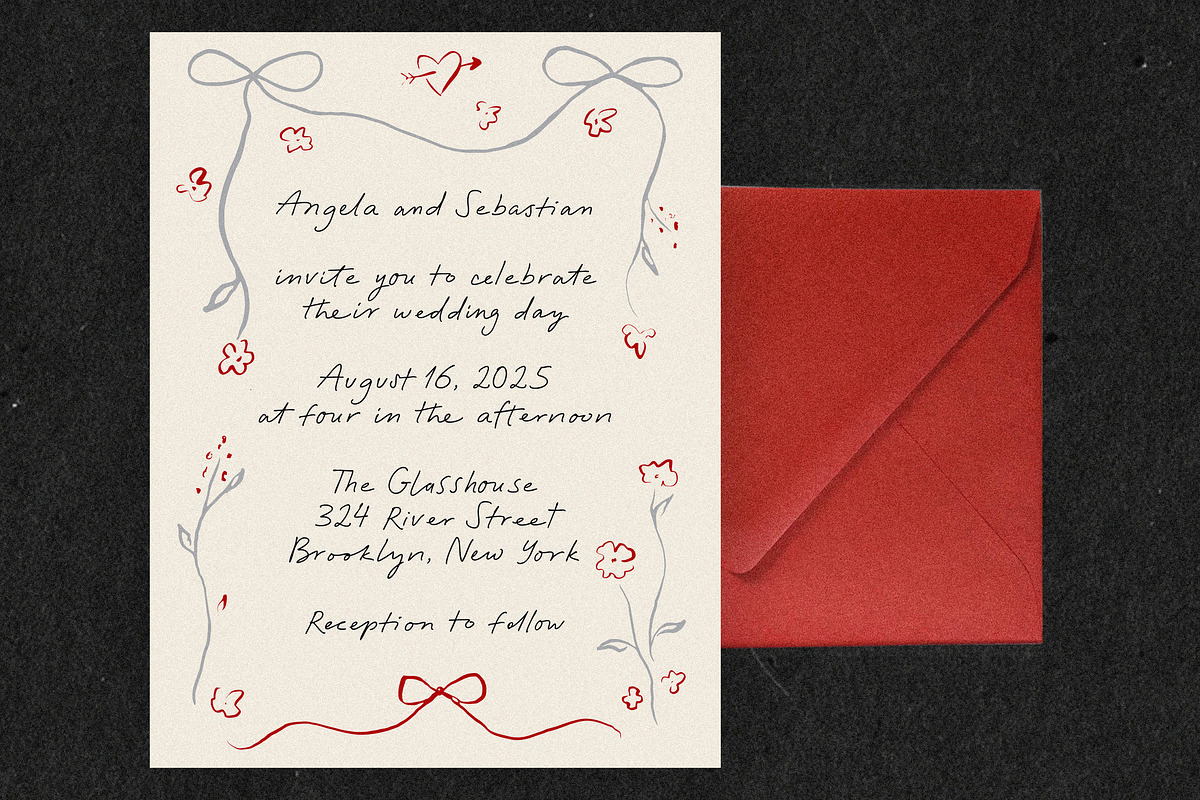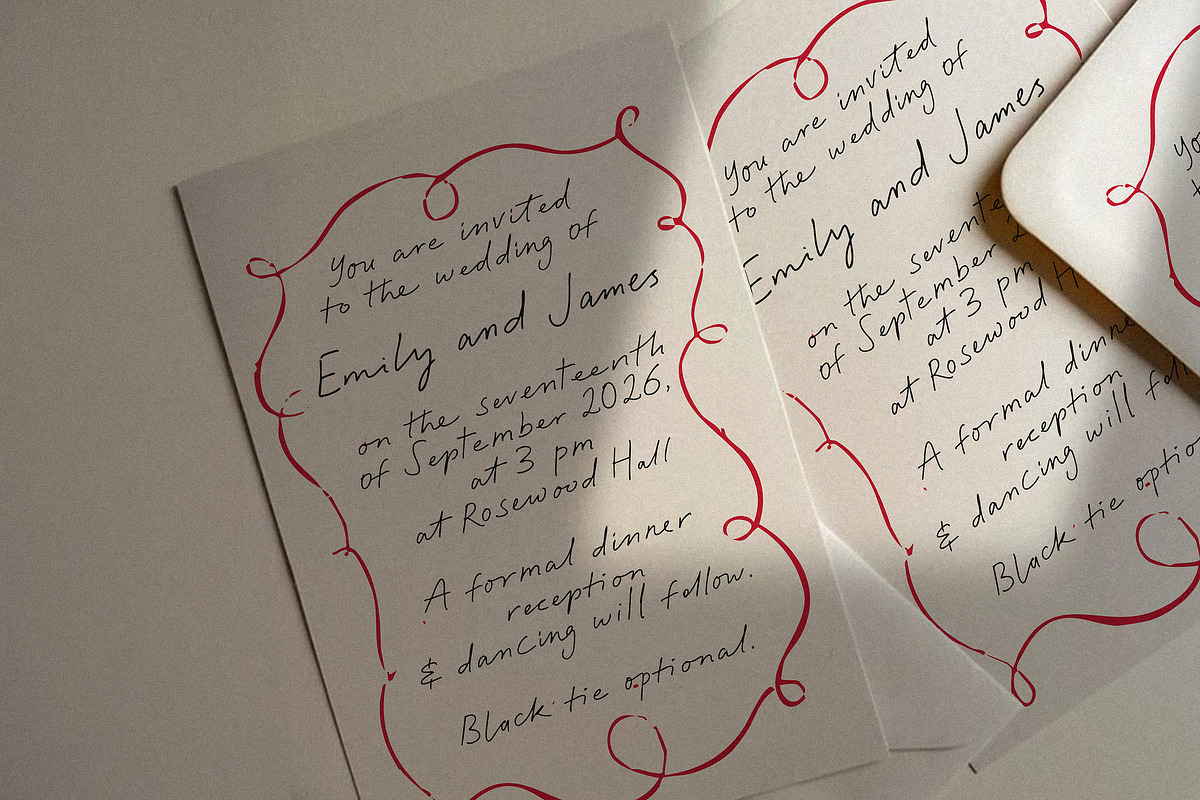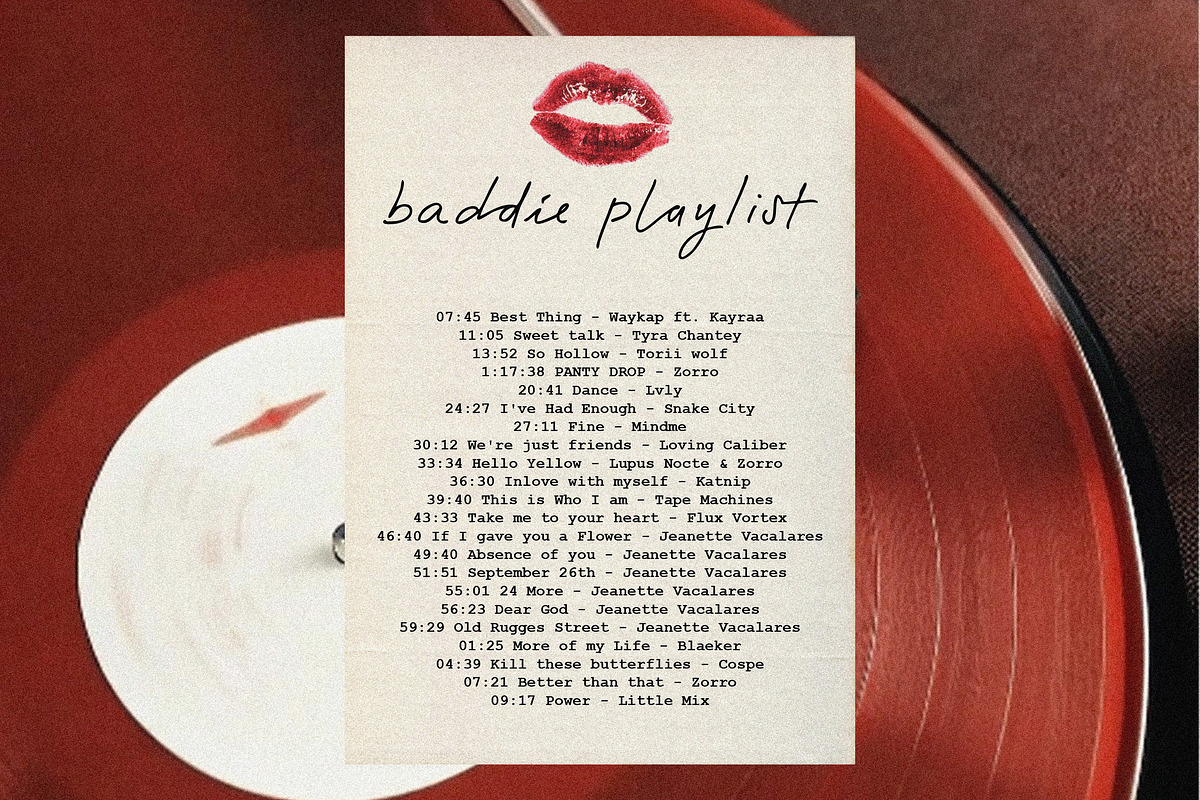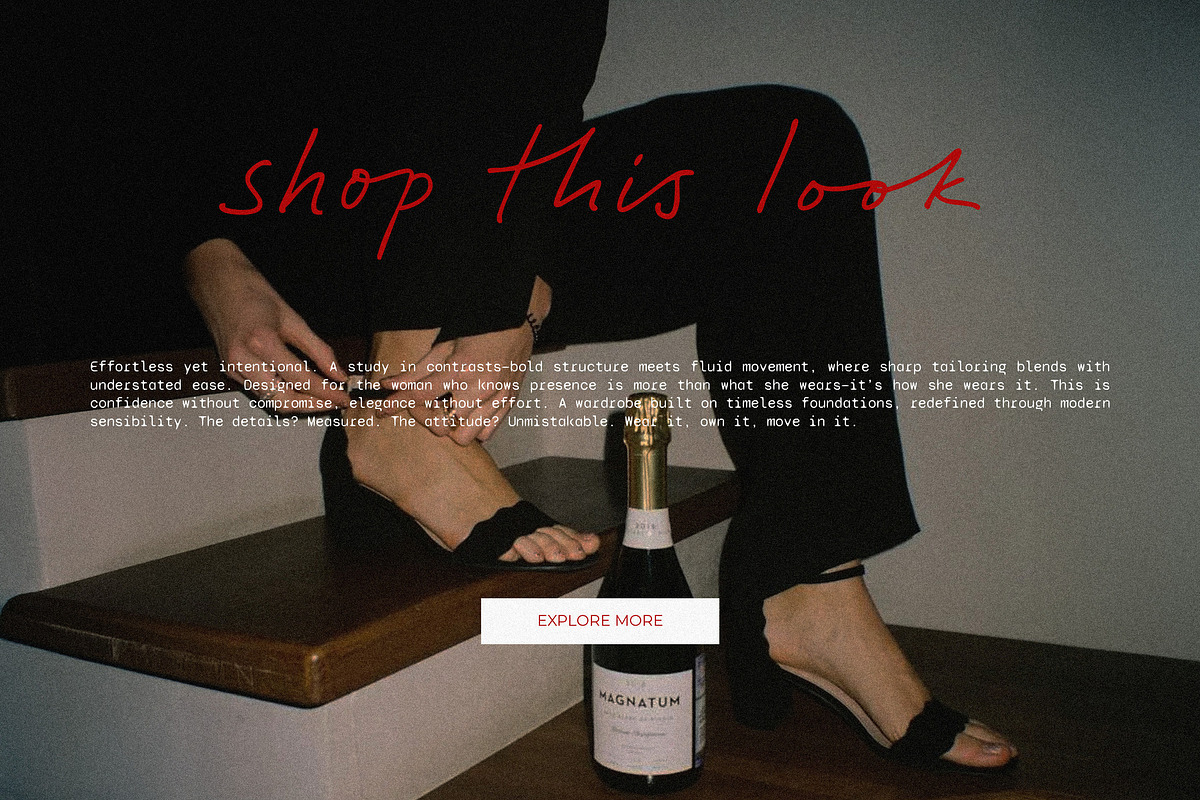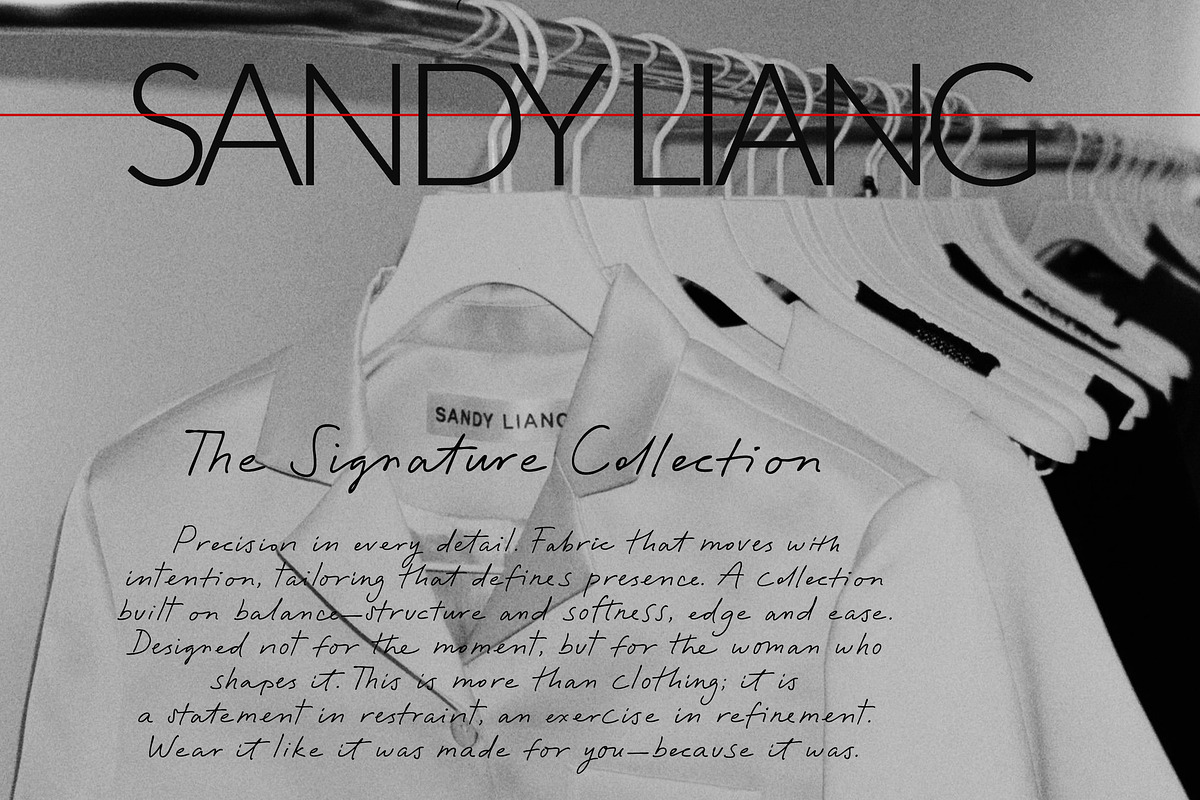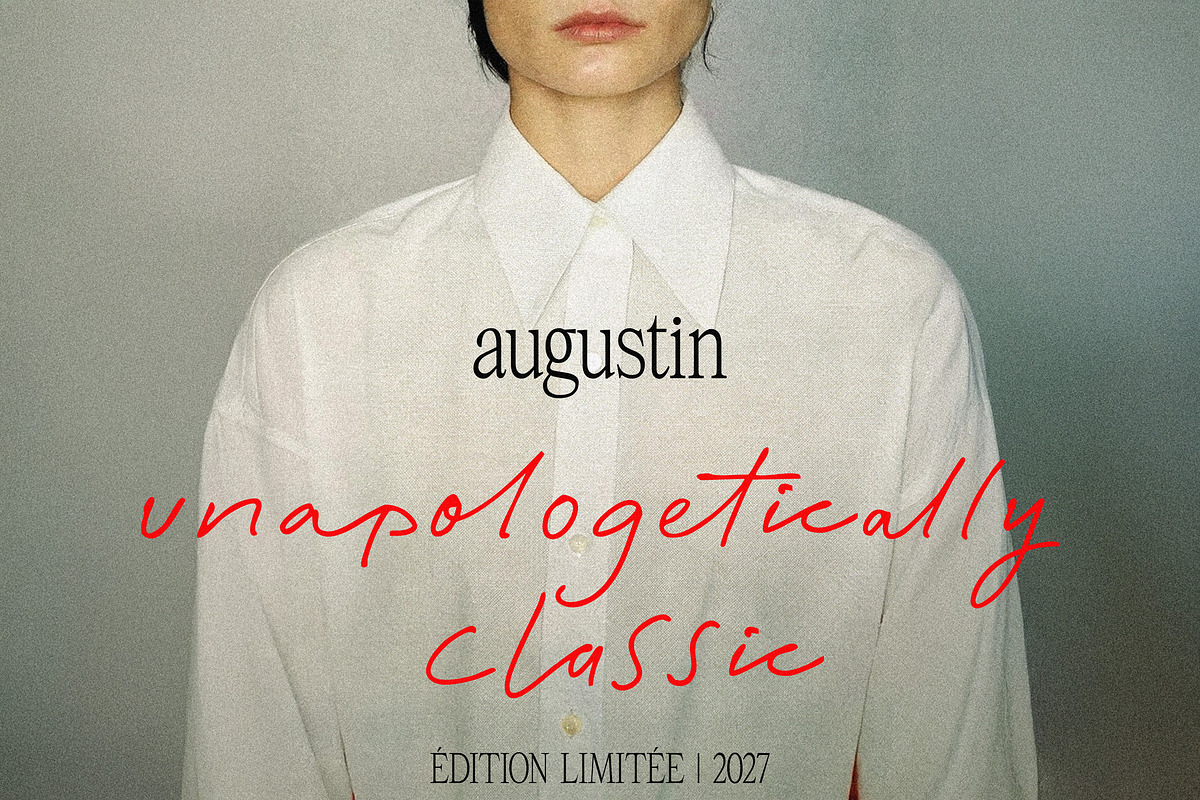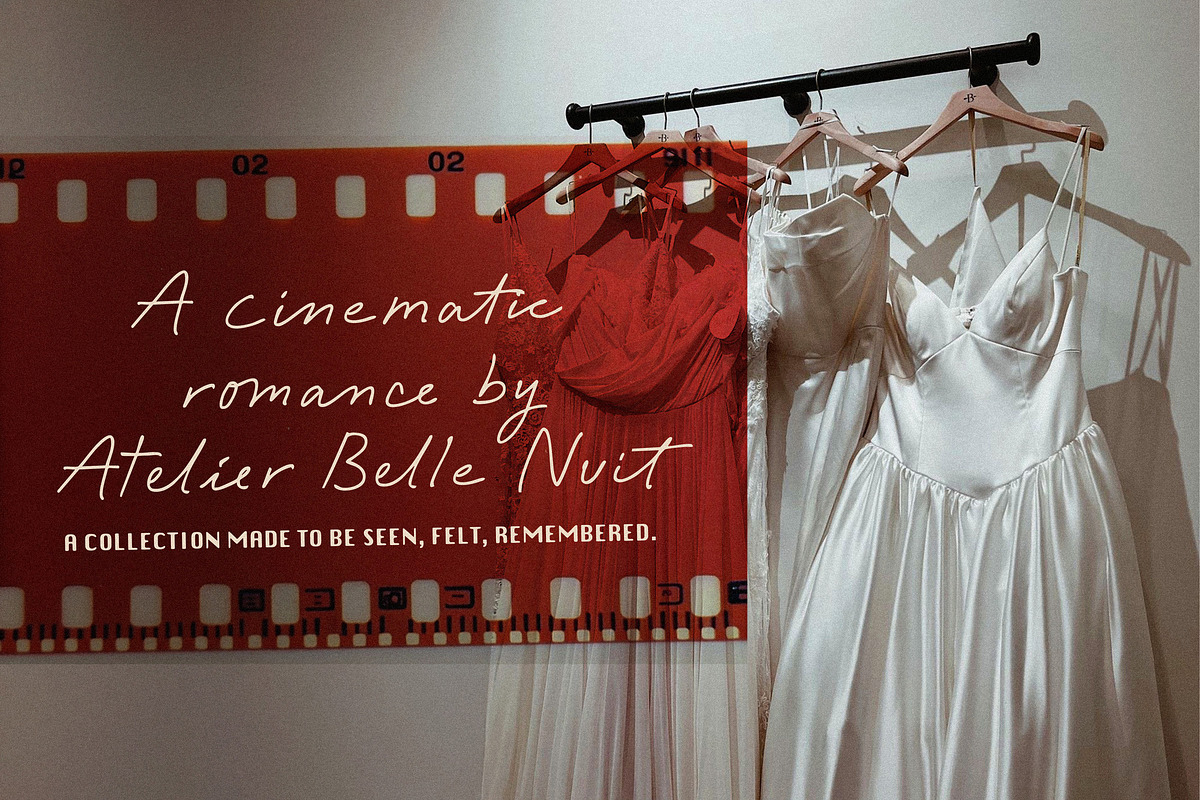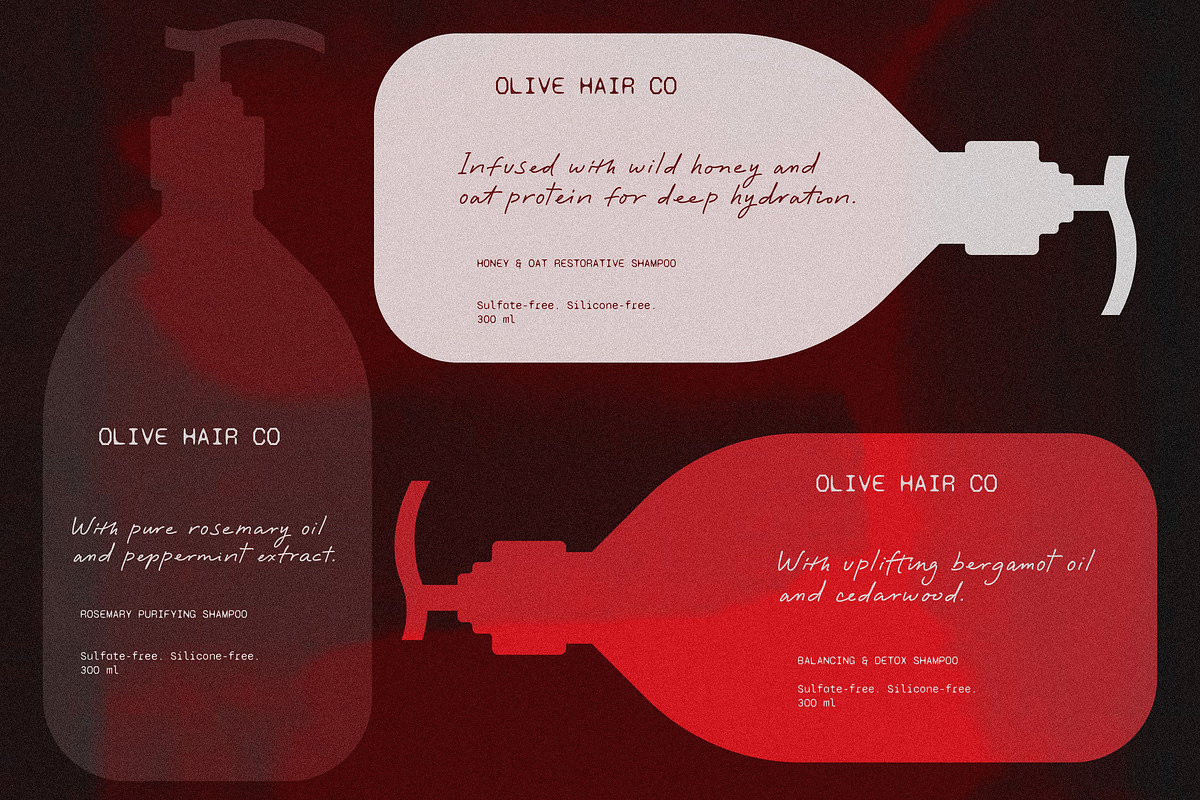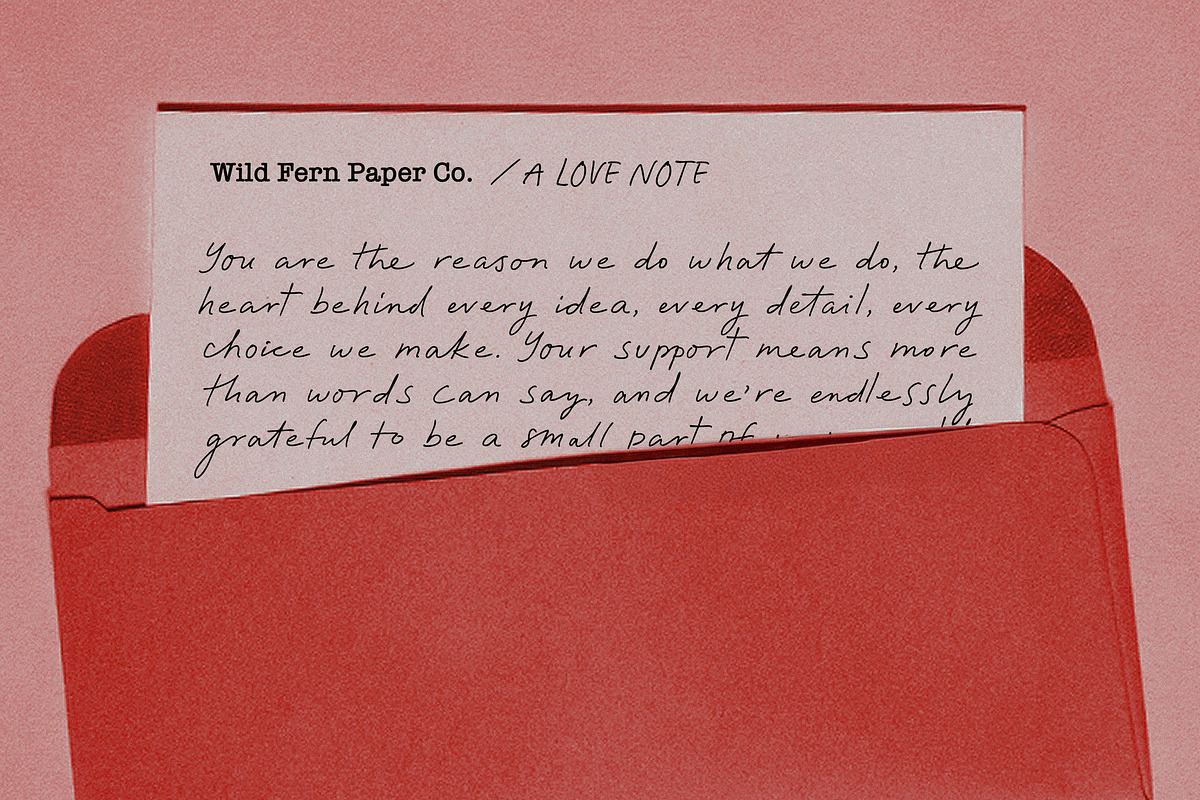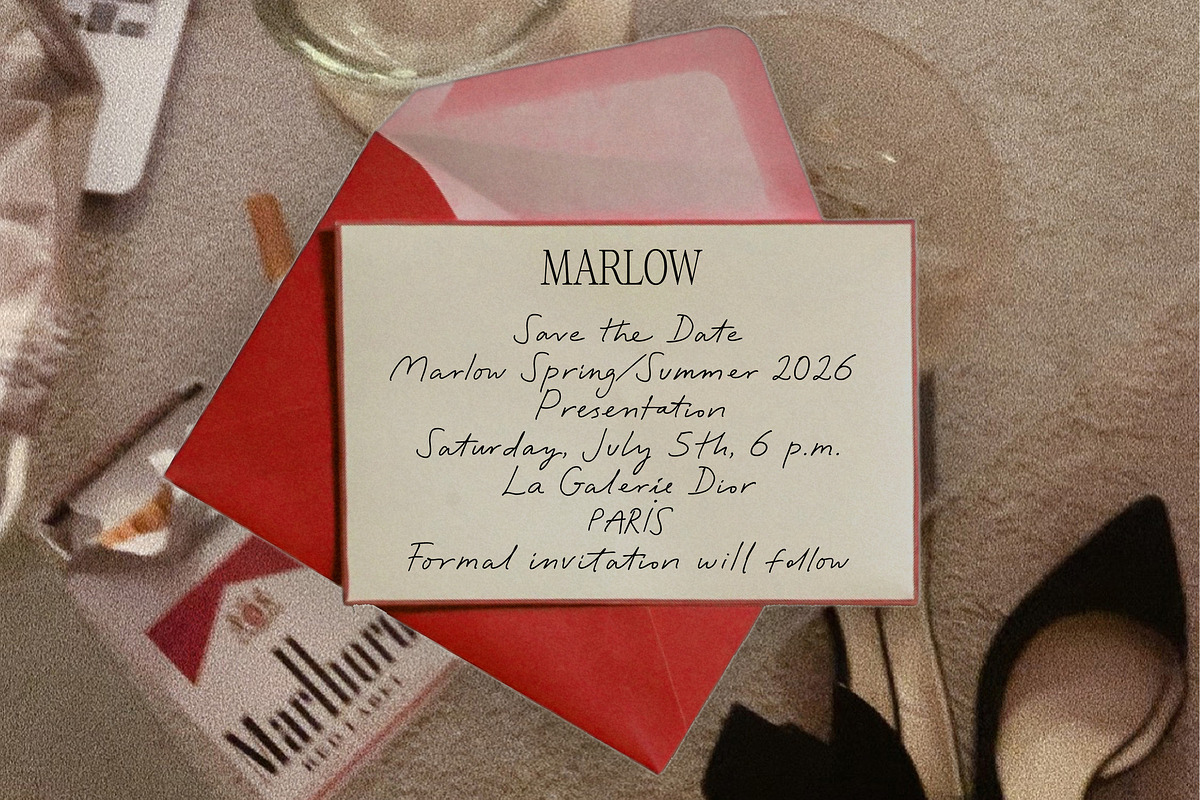
The Editorial Method // Stylish Font
The Editorial Method is a refined script font with a balance of fluid movement and structured elegance. Designed with natural, organic ligatures, it adapts seamlessly to both formal and expressive applications. With two weights—regular and bold—it works well for editorial design, branding, invitations, and understated luxury aesthetics. The alternative uppercase set adds variety, while the ligatures create a natural, handwritten rhythm.